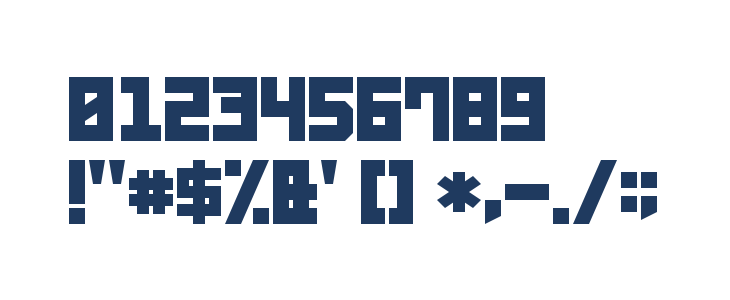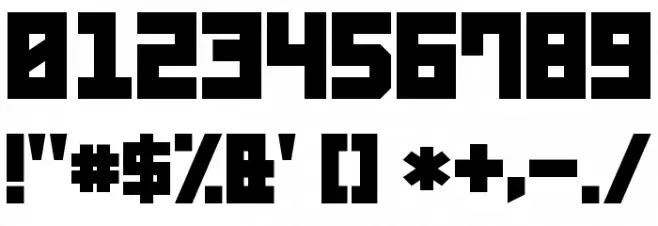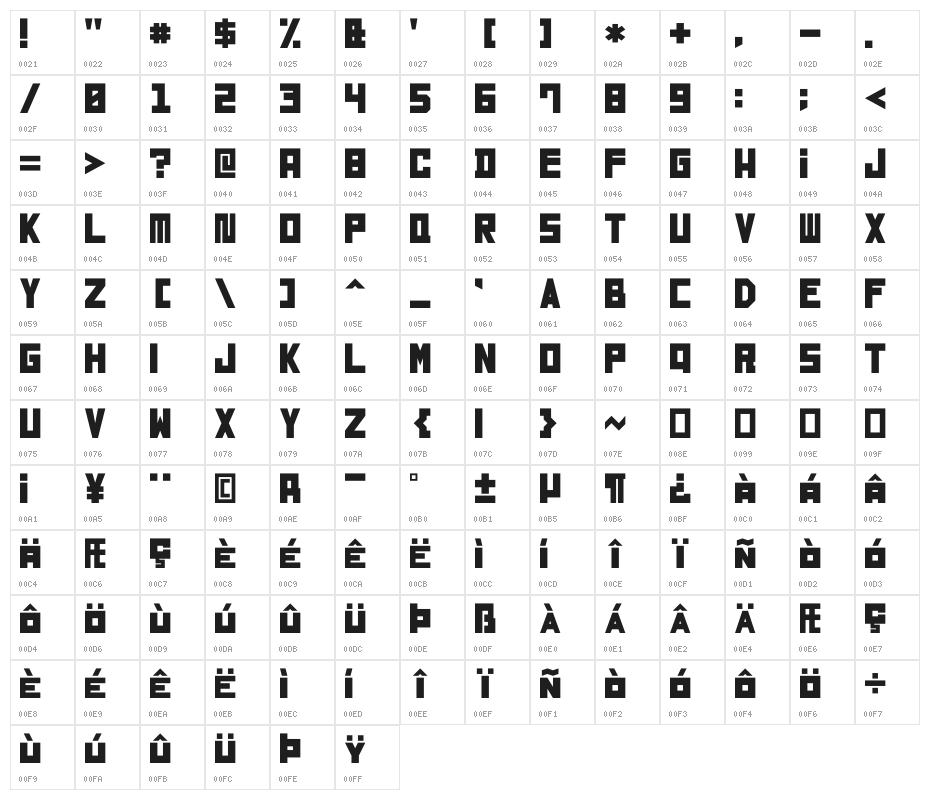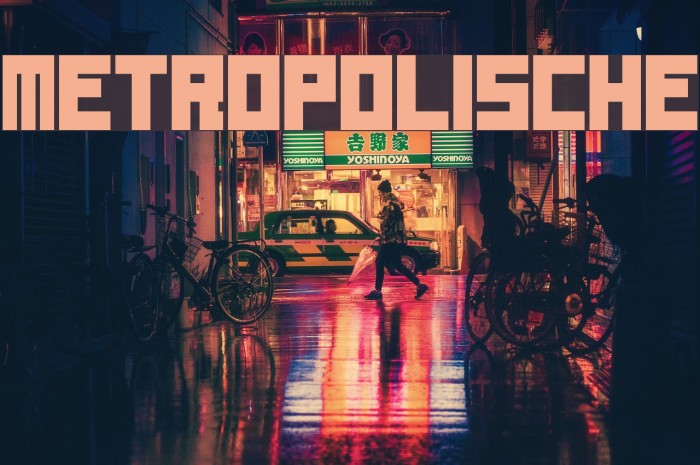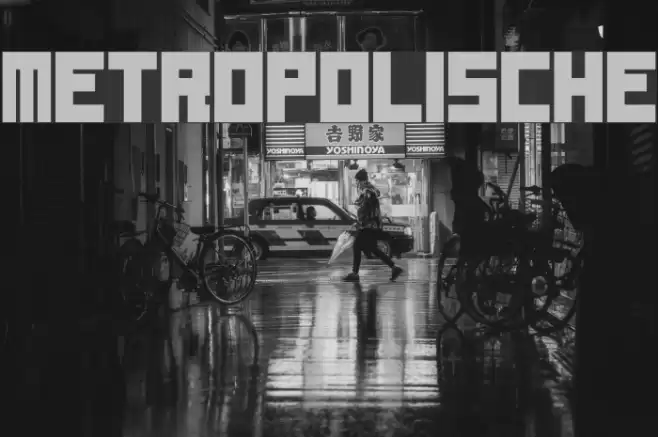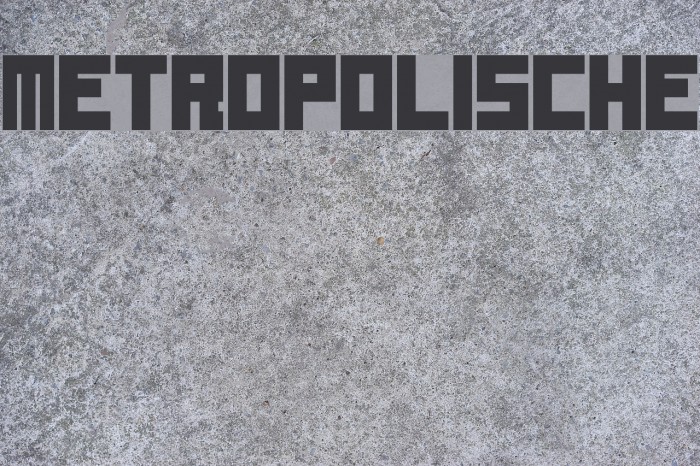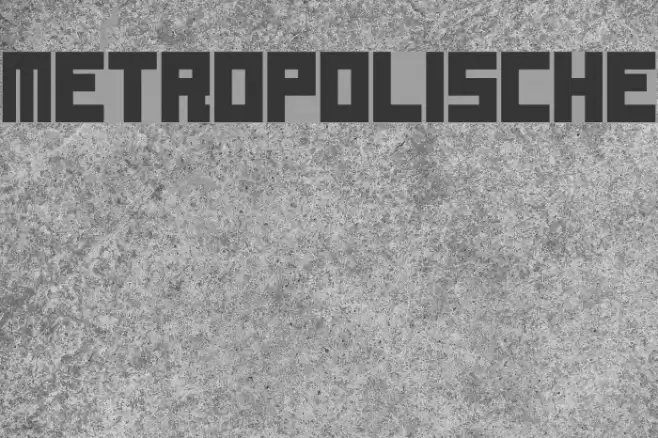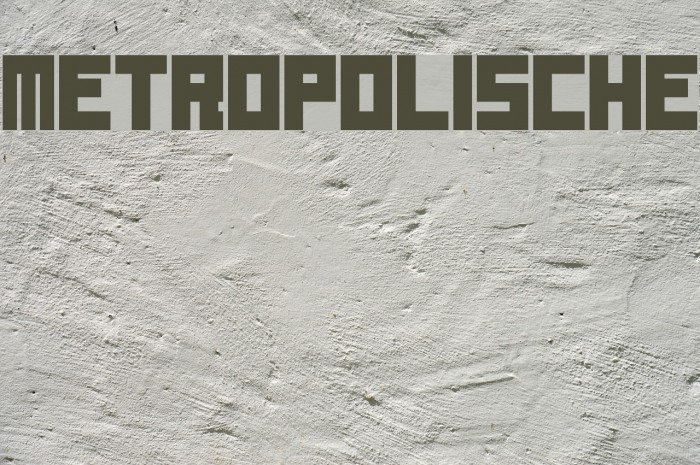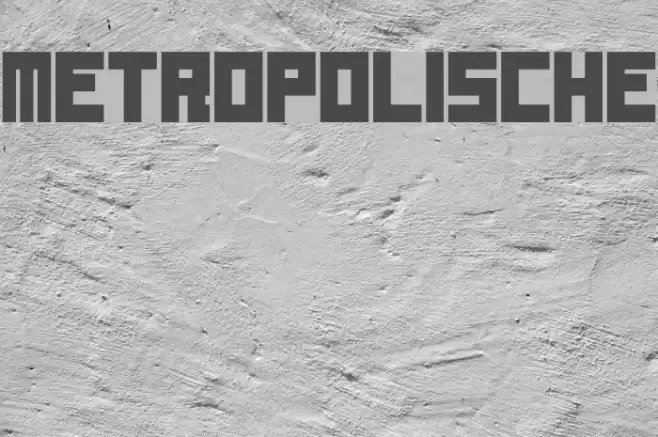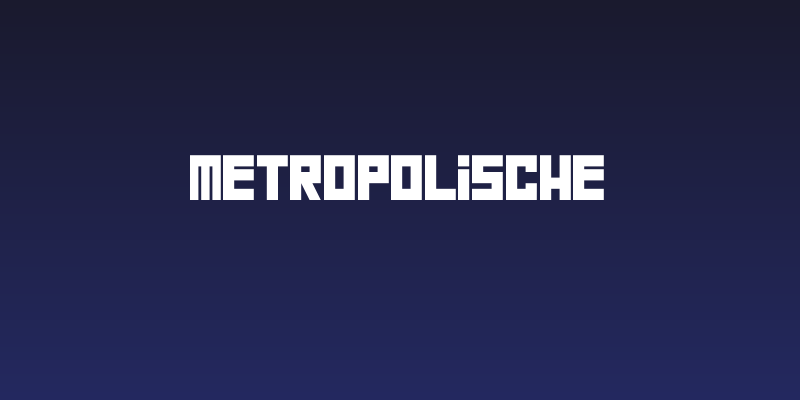
Metropolische Font
Metropolische Description
This font features a bold and geometric design, characterized by its blocky and angular letterforms. The uppercase and lowercase letters maintain a consistent width, giving the typeface a monospaced appearance. The sharp edges and straight lines contribute to a modern and industrial aesthetic, making it stand out in any design. The numbers and special characters follow the same bold and structured style, ensuring uniformity across all glyphs. This font's distinct and robust appearance makes it ideal for projects that require a strong visual impact.